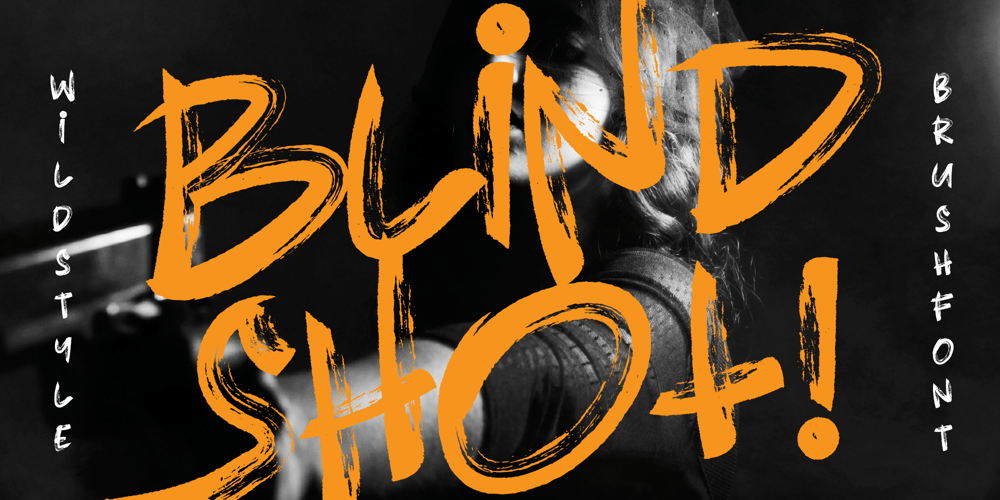
Blindshot Font Family was designed by Stefie Justprince and published by Crumphand. Blindshot contains 1 styles and family package options. Introducing the Wild Brush Style Fonts, Blindshot.Blindshot inspired by vaporwave, graffity.This font have a good shape and texture.Good for your brand, clothing line, company and etc.What’s Included Inside The Fonts ? Uppercase Lowercase Symbols Numerals Stylistic Set 1 Stylistic Set 2 Stylistic Set 3 Stylistic Set 4 European Multilingual Thank You, Regards!